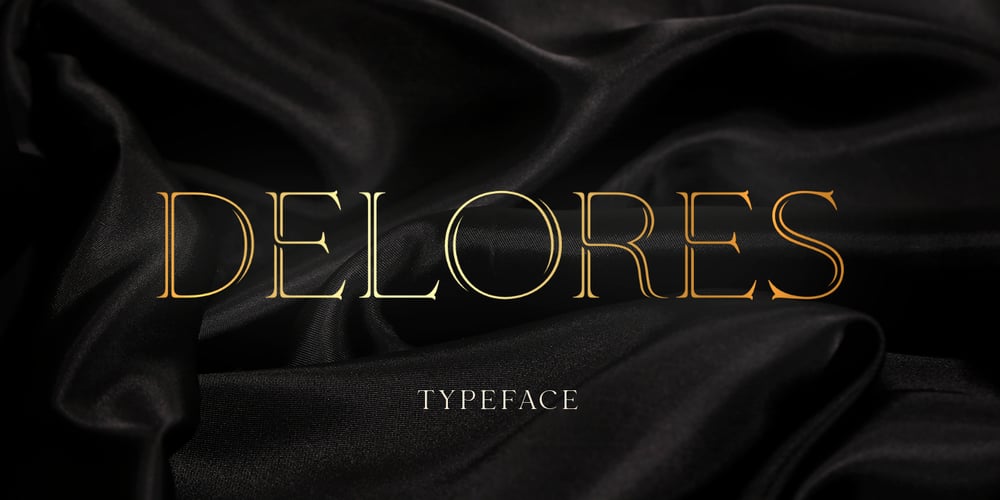
Delores
Delores font
Delores Font Family was designed by Pavel Larin and published by Larin Type Co. Delores contains 1 styles and family package options. DELORES This is an elegant decorative typeface, it has a wide range of uses, it is perfect for creating template logos, wedding invitations, greeting cards, labels, book and magazine covers, business cards, branding for your business and much more. Delores has only Capital letters and includes many alternatives, with them you can make your project more expressive and elegant. This font is easy to use and has OpenType features.